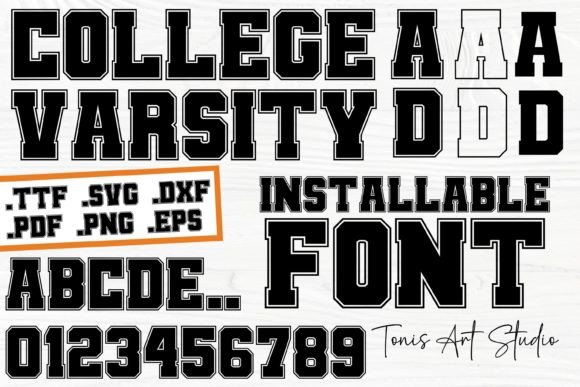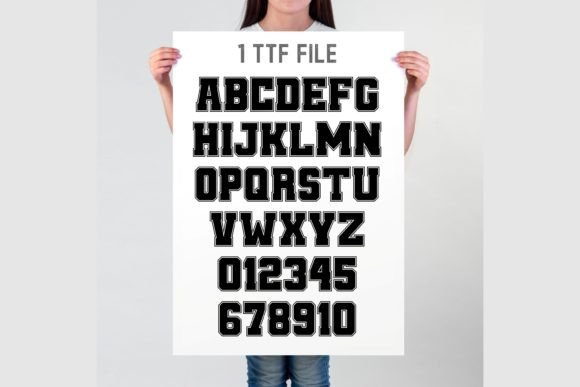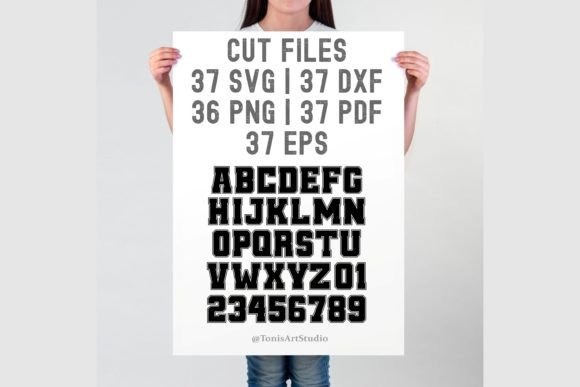
Ab College Outline Font
About the Ab College Outline Font
Meet Ab College Outline Font, a stunning font that brings a touch of elegance and professionalism to any design. Introducing the College Font SVG, perfect for all your varsity-themed creations! This outline font featuring classic sports letters inspired by university aesthetics. Elevate your projects with the timeless and versatile Varsity Font SVG, adding a touch of collegiate charm to your designs. Perfect for crafting, apparel, signage, and more, this font set is a must-have for any sports fan or design enthusiast. Make a statement with these bold and dynamic letters today!
This font’s bold, slightly retro style works best in headlines, logos, short slogans, and posters where its strong presence can make a statement. It’s also suitable for packaging design, particularly for products targeting a younger demographic or those with a vintage athletic feel. However, it’s less effective for body text or UI elements due to its low x-height and thick outlines which can hinder readability in longer passages.
Pairing Ab College Outline Font with a clean sans-serif like Open Sans for body copy creates a strong contrast and visual balance. For a more playful feel, consider pairing it with a script font such as Pacifico, but use the script sparingly as an accent. Alternatively, a geometric sans-serif like Montserrat can offer a modern, sophisticated counterpoint.
The overall personality is energetic and bold, conveying a sense of collegiate spirit and tradition with a contemporary twist. It’s ideal for brands associated with sports, education, or anything requiring a confident, slightly nostalgic aesthetic.